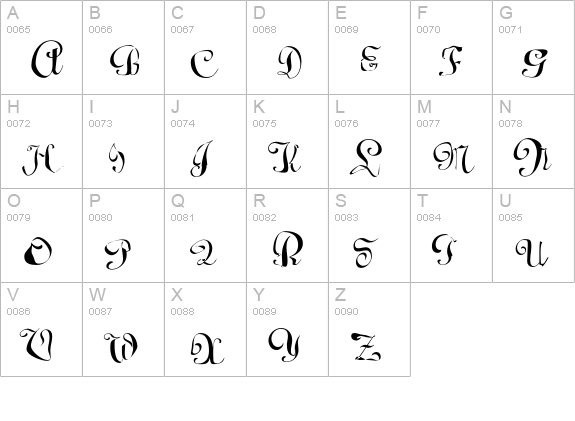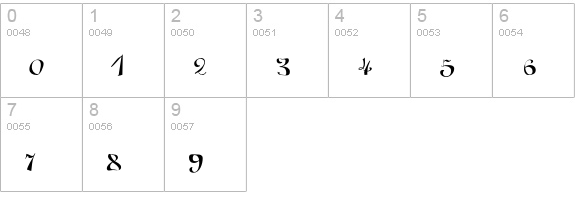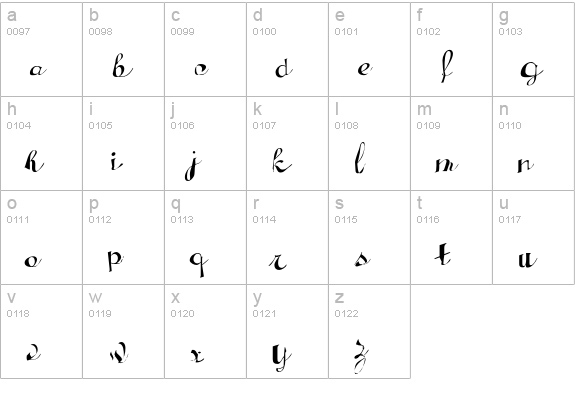
Raydiant Font Details
Introducing Raydiant, a truly mesmerizing font that will illuminate your designs with its radiant charm. This font exudes an electrifying energy that captivates the eye, making it perfect for any project that seeks to make a bold statement. With its sleek and modern design, Raydiant effortlessly combines elegance and innovation, creating a dynamic visual experience. But what makes Raydiant even more special is that it is not only a stunning font, but also freely available to download at FontsMarket.com. Yes, you read that right - this extraordinary font can be yours at no cost! Whether you're a professional designer or a creative enthusiast, the opportunity to access such a remarkable font without breaking the bank is truly a dream come true. Raydiant's versatility knows no bounds. It is equally at home in both digital and print mediums, making it perfect for a wide range of projects. From eye-catching logos to captivating headlines, from stylish advertisements to striking posters, Raydiant has the power to elevate any design to new heights. The meticulously crafted letterforms of Raydiant effortlessly flow together, creating a seamless and harmonious visual experience. Each curve and stroke has been carefully designed to exude confidence and sophistication, ensuring that your message is conveyed with maximum impact. By using Raydiant, you will effortlessly command attention and leave a lasting impression on your audience. So why wait? Embrace the brilliance of Raydiant and let your creativity shine. Download this exceptional font for free at FontsMarket.com and unlock a world of possibilities. With Raydiant by your side, your designs will radiate with a unique and captivating energy that is sure to leave a lasting impression. Don't miss out on this incredible opportunity - get your hands on Raydiant today and watch your designs come to life!